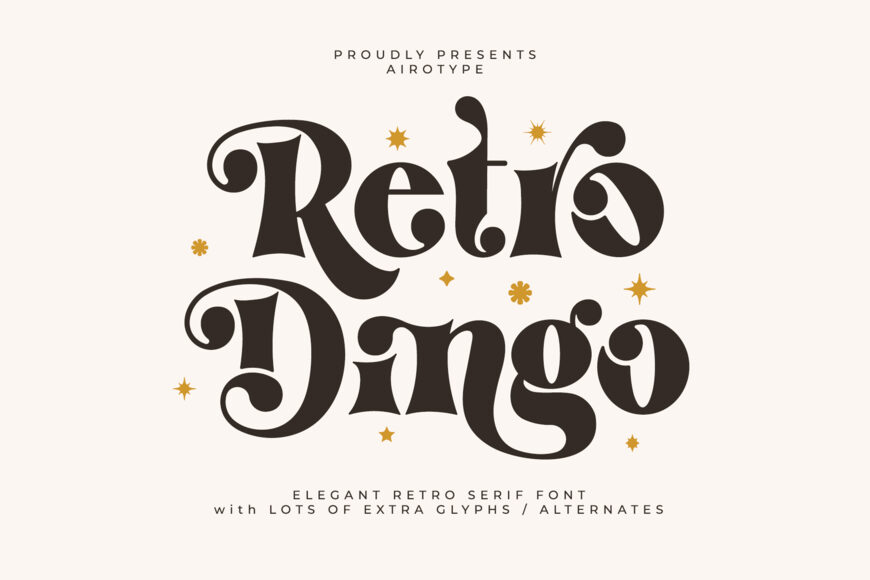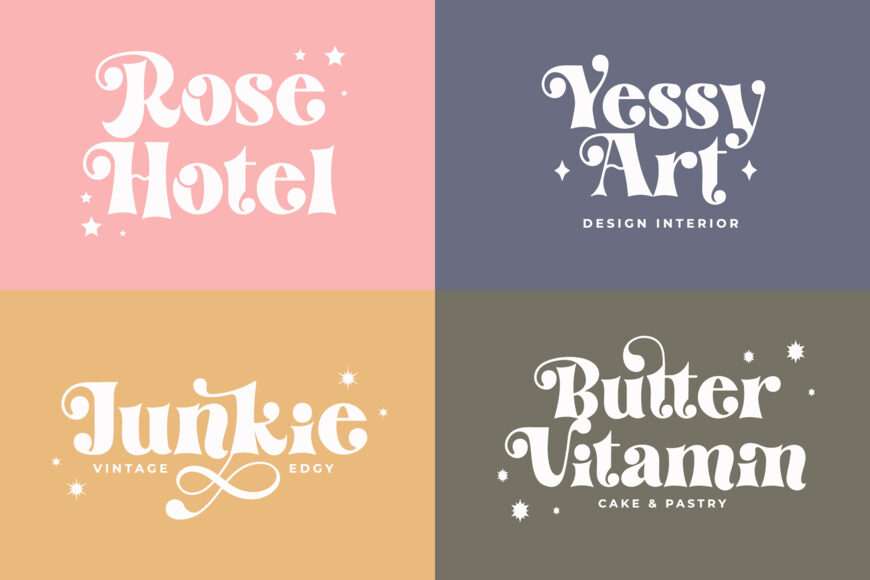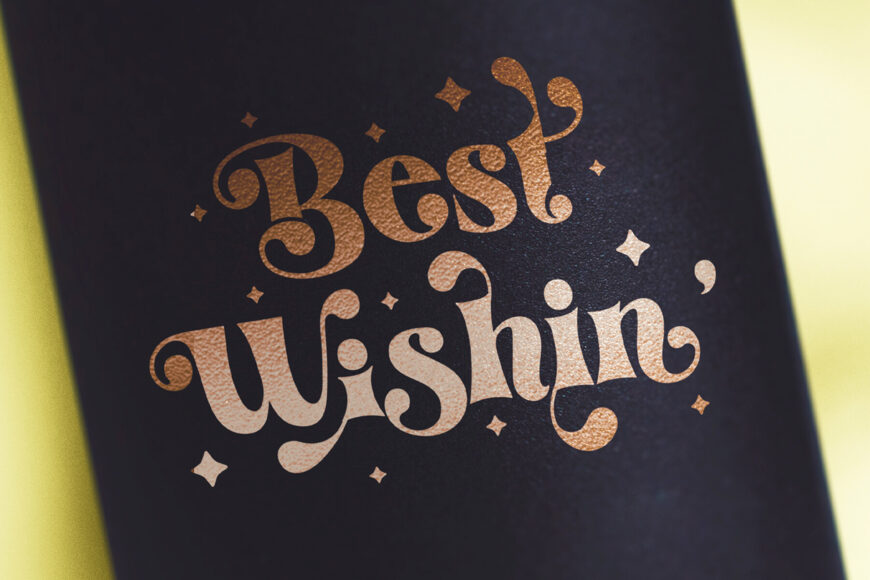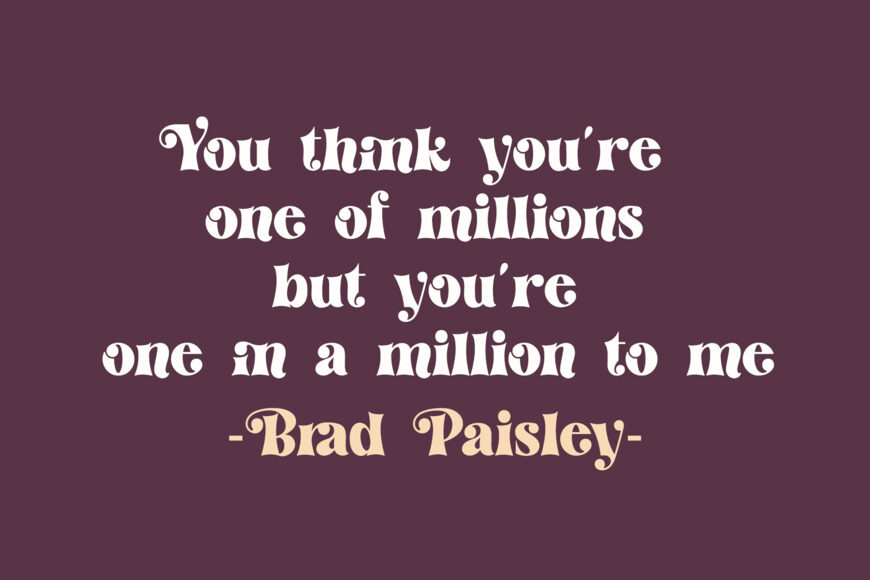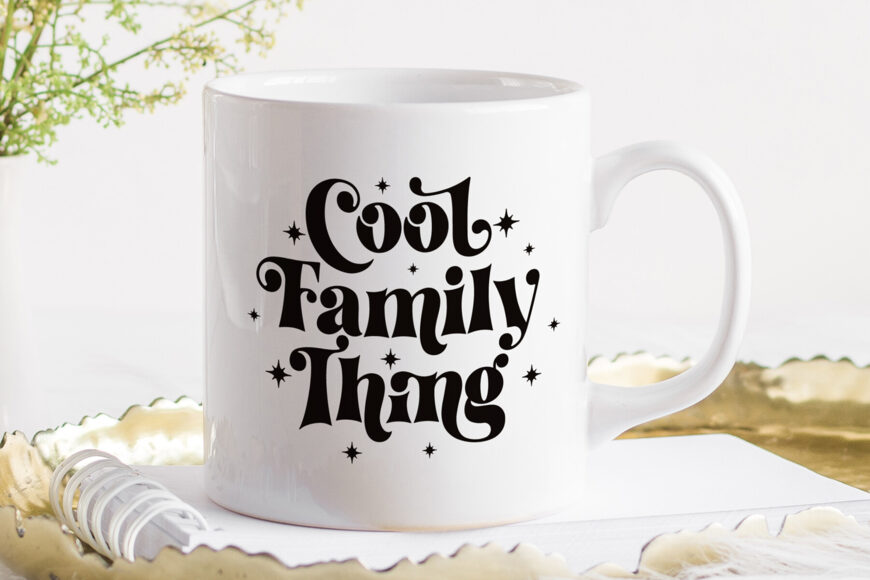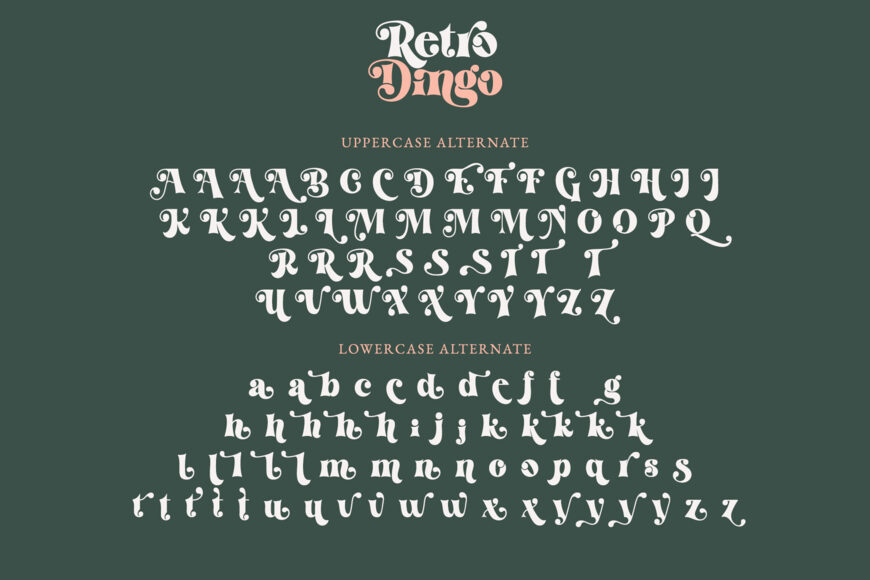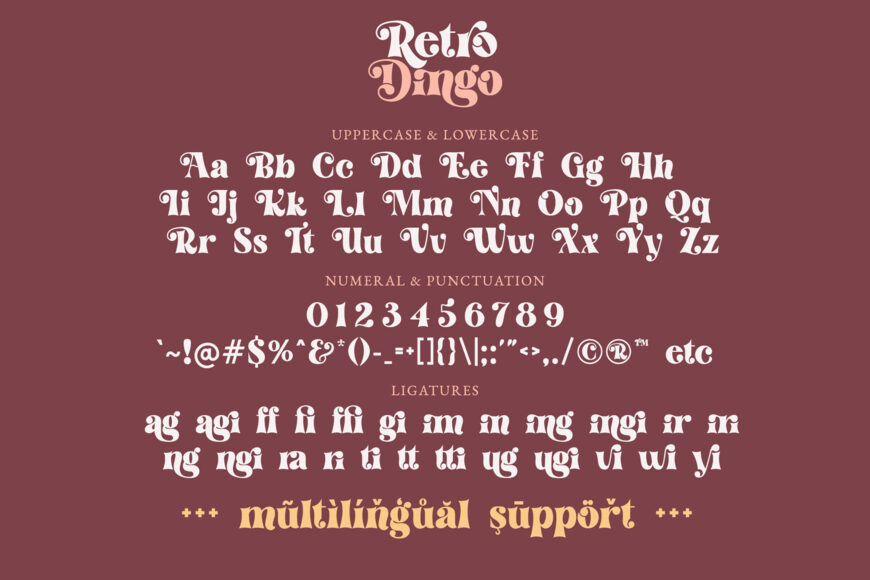
Retro Dingo Font
Retro Dingo is a modern and elegant serif font with a vintage touch. It is quirky, pretty, and nostalgic. This font is the perfect font for any project with a modern vintage touch, such as logos, crafting, wedding invitations, branding, photography, sticker, sublimation, quotes, and many others. This font is PUA encoded which means you can access all of the amazing glyphs and ligatures with ease!